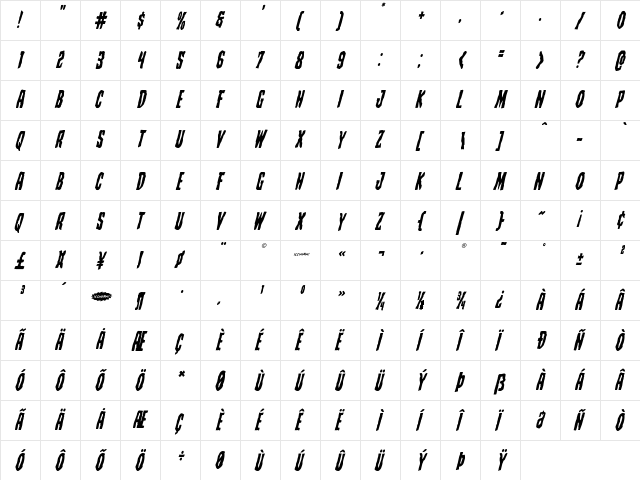
Creepy Crawlers Staggered Italic Italic Font Preview
Creepy Crawlers Staggered Italic Italic
Design Context for Creepy Crawlers Staggered Italic Typeface
Creepy Crawlers Staggered Italic leans into the macabre with letterforms designed to disturb and intrigue in equal measure. The slanted form adds forward momentum and visual energy.
Perfect for anything that needs to unsettle — game titles, horror branding, and macabre invitations.
Font Pairing: Pair with a clean neutral sans-serif for body copy to let Creepy Crawlers Staggered Italic's character lead without overwhelming the composition.
Pro Tip: Use Creepy Crawlers Staggered Italic at larger display sizes for maximum impact. Consider generous tracking to let the disturbing character of each letterform breathe.